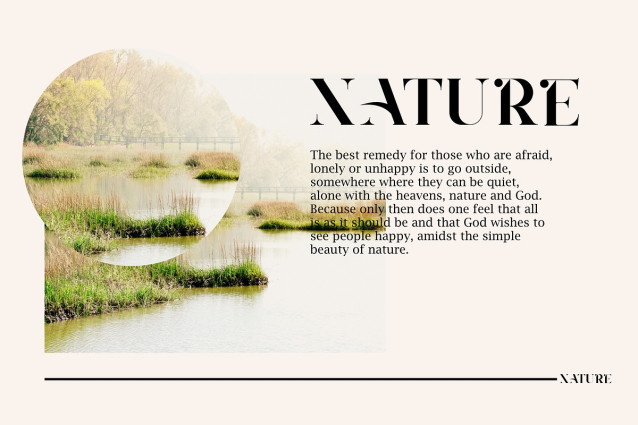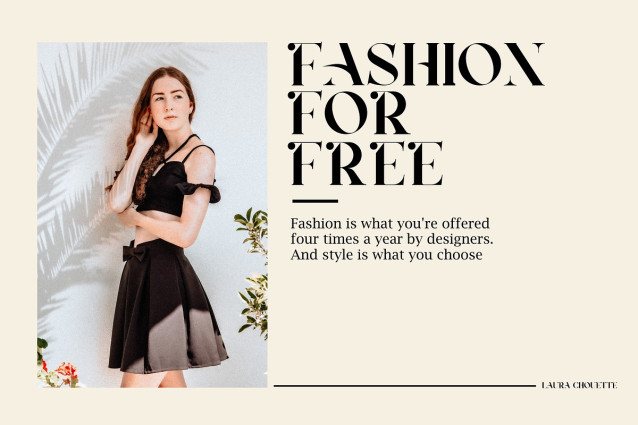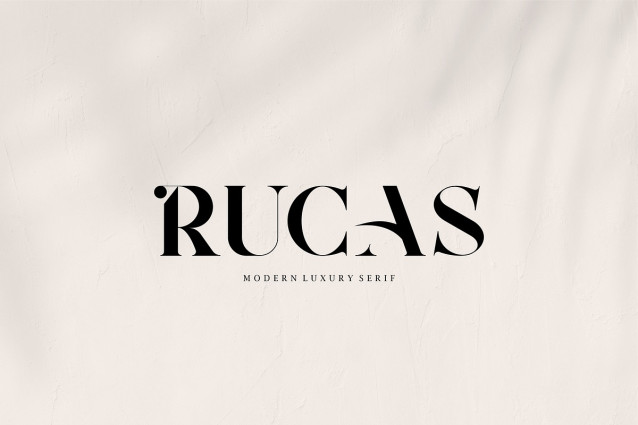
Rucas Font
Rucas Font is a modern luxury serif font. Rucas will perfect for many project: fashion, magazines, logo, branding, photography, invitations, wedding invitation, quotes, blog header, poster, advertisements, postcard, book, websites, etc.